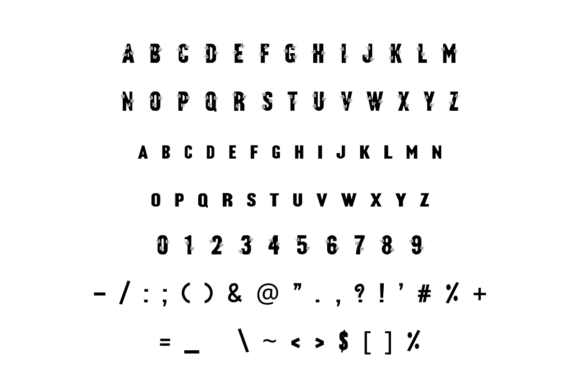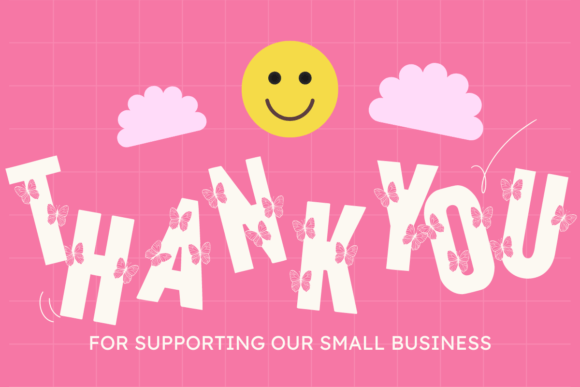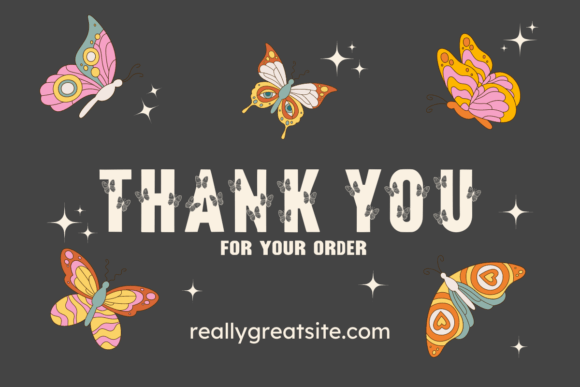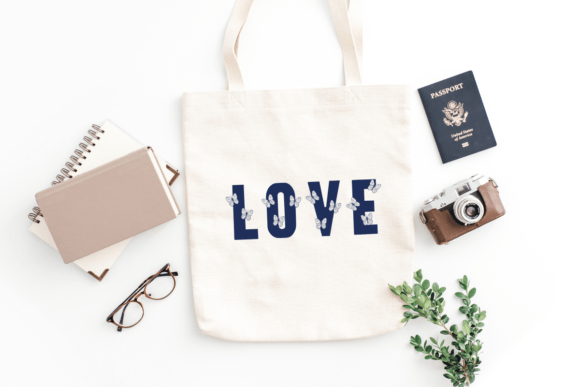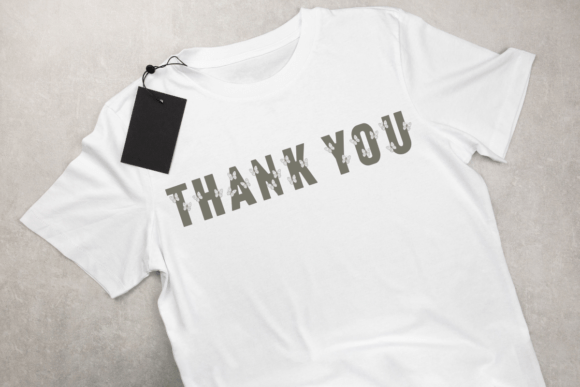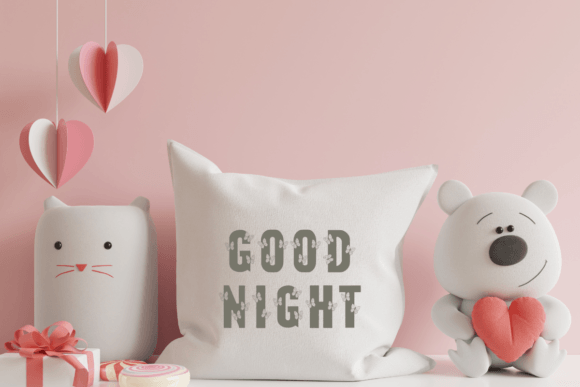
Introducing the Butterfly Font: Add a Touch of Whimsy to Your Designs
Are you tired of using the same old fonts in your designs? Do you want to add a touch of playfulness and whimsy to your writing? Look no further than the Butterfly Font! This beautiful and decorative font features small butterflies on each letter, making it perfect for crafters, designers, and anyone looking to add a little fun to their text.
What is the Butterfly Font?
The Butterfly Font is a unique and eye-catching font that features intricate illustrations of butterflies on each letter. The font is designed to be pretty and playful, making it perfect for a variety of design projects, from crafting and scrapbooking to branding and advertising. Whether you’re looking to create a fun and lighthearted design or simply want to add a touch of elegance to your text, the Butterfly Font is sure to impress.
Key Features of the Butterfly Font
- Unique and eye-catching design: Each letter features a small butterfly illustration, making this font truly one-of-a-kind.
- Playful and whimsical feel: The Butterfly Font is perfect for designs that require a fun and lighthearted touch.
- Perfect for crafters and designers: This font is ideal for crafters, scrapbookers, and designers looking to add a personal touch to their designs.
- Easily customizable: The Butterfly Font can be easily resized, colored, and edited to fit your design needs.
Uses for the Butterfly Font
The Butterfly Font is versatile and can be used in a variety of design projects, including:
- Crafting and scrapbooking: Add a personal touch to your scrapbook pages, cards, and other craft projects with this beautiful font.
- Branding and advertising: Use the Butterfly Font to create eye-catching logos, ads, and marketing materials that stand out from the crowd.
- Stationery and invitations: Make your stationery, invitations, and greeting cards truly special with this unique font.
- Digital design: Use the Butterfly Font in your digital designs, such as website headers, social media graphics, and more.
Tips for Using the Butterfly Font
To get the most out of the Butterfly Font, here are a few tips to keep in mind:
- Use it sparingly: While the Butterfly Font is beautiful, it can be overwhelming if used excessively. Use it sparingly to add emphasis to key words or phrases.
- Pair it with complementary fonts: Pair the Butterfly Font with simpler fonts to create visual interest and balance in your design.
- Experiment with colors: Try out different colors and textures to add depth and dimension to your design.
The Butterfly Font is a beautiful and playful decorative font that’s perfect for designers, crafters, and anyone looking to add a touch of whimsy to their writing. With its unique and eye-catching design, this font is sure to impress and add a personal touch to your designs. Whether you’re working on a crafting project, branding campaign, or digital design, the Butterfly Font is a great choice. So why not give it a try and see the magic it can bring to your designs?